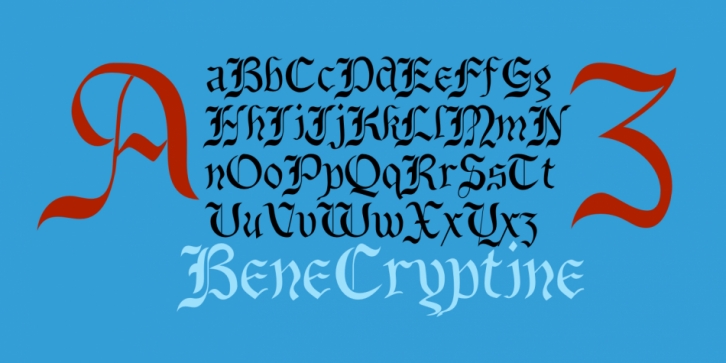
Designed by Robert Schenk, BeneCryptine is a blackletter font family. This typeface has three styles and was published by Ingrimayne Type.
BeneCryptine has very exaggerated upper-case letters and hyperactive lower-case letters. It is not based on any particular type style.